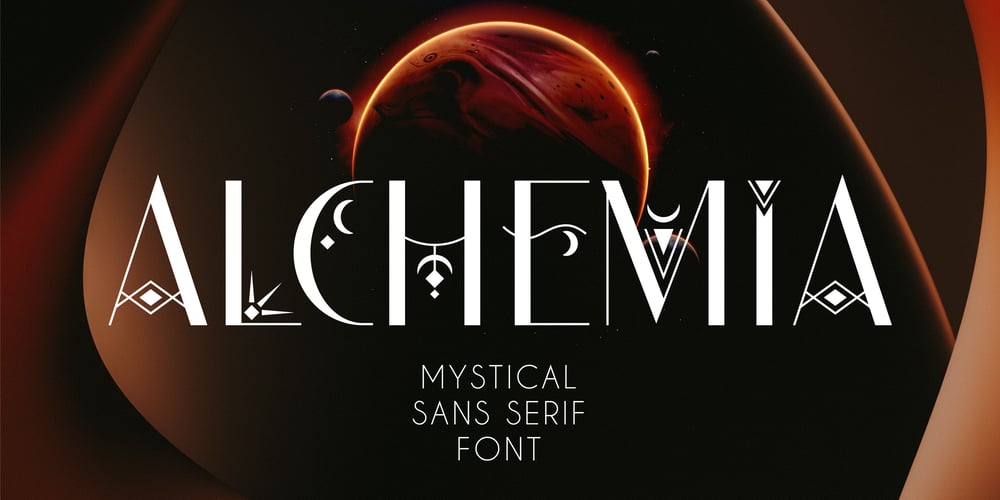
Alchemia Decorative Font Family was designed by Viktoryia Strukouskaya and published by Struvictory.art. Alchemia Decorative contains 1 styles and family package options. ALCHEMIA is a modern sans serif font with mystical motives. The font is created in classic proportions and decorated with celestial and boho decor. ALCHEMIA is represented by sans serif lowercase and ornate uppercase. The font is suitable for the design on the theme of astrology, mysticism, spirituality, witchcraft, magic, esotericism.